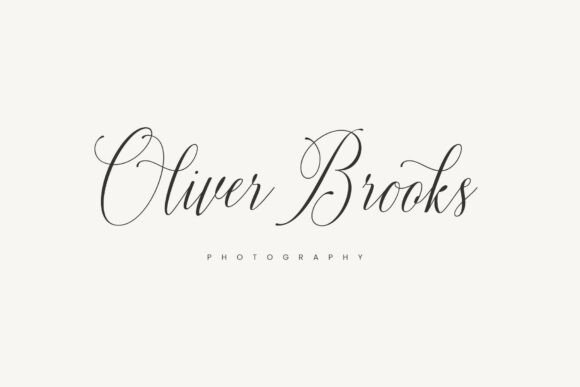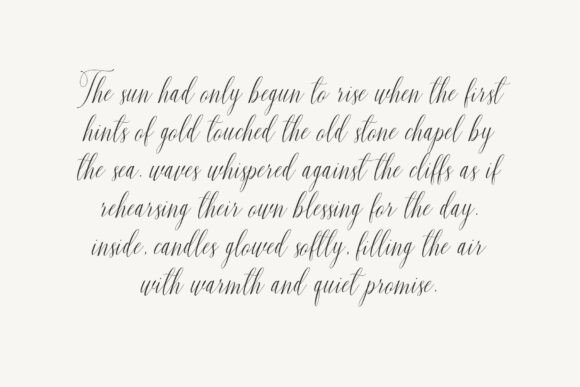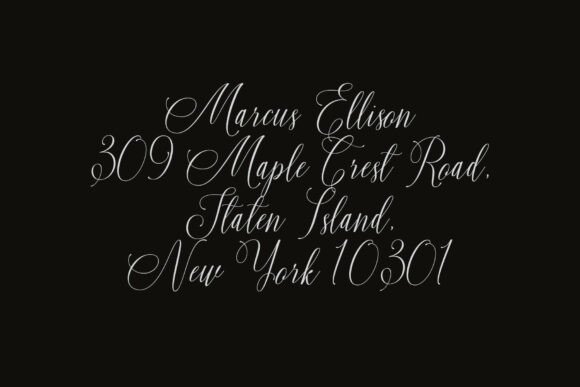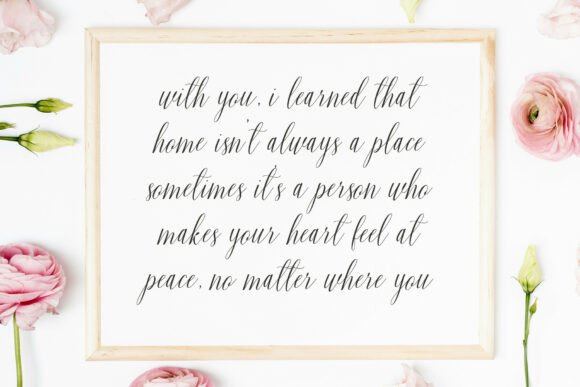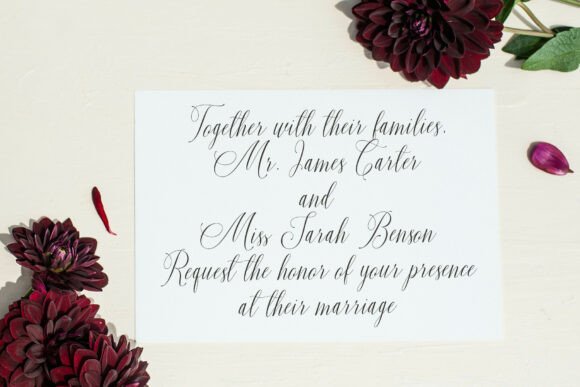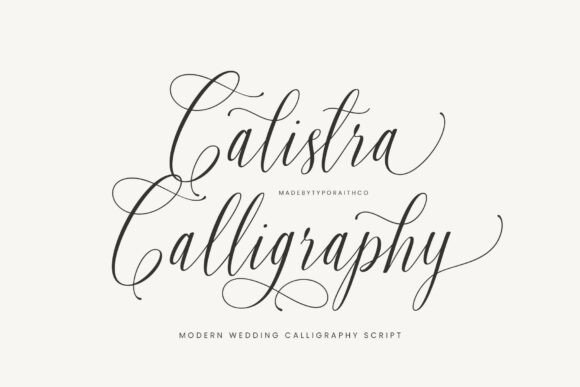
Introducing Calistra Calligraphy Font: Elevate Your Designs with Luxurious Elegance
In the world of typography, few fonts capture the essence of luxury and sophistication as effortlessly as Calistra Calligraphy. This modern script font is meticulously crafted to infuse any design with a romantic, high-end feel, making it an ideal choice for wedding stationery, upscale branding, and premium design projects. With its graceful strokes, flowing curves, and exquisitely refined letterforms, Calistra Calligraphy offers a timeless charm that elevates every creation to new heights of visual beauty.
The Art of Calistra Calligraphy
Calistra Calligraphy is more than just a font; it’s an experience. Its luxurious and elegant design is perfect for designers, small business owners, and crafters looking to add a touch of sophistication to their work. Whether you’re creating bespoke wedding invitations, elegant branding for a high-end client, or simply looking to elevate your personal projects, Calistra Calligraphy provides the perfect blend of style and versatility.
Key Features of Calistra Calligraphy Font
- Luxurious and Elegant Design: Calistra Calligraphy boasts a sophisticated aesthetic that instantly adds a premium feel to any design.
- Graceful Strokes and Flowing Curves: The font’s fluid strokes and curves create a visually stunning effect, perfect for designs that require a touch of elegance.
- Refined Letterforms: Each letterform in Calistra Calligraphy is carefully crafted to ensure maximum readability and aesthetic appeal.
- Versatile and Adaptable: From wedding stationery to upscale branding and packaging, Calistra Calligraphy adapts seamlessly to various design needs.
Why Choose Calistra Calligraphy?
For designers and crafters, the right font can make all the difference in transforming a good design into a great one. Calistra Calligraphy offers several compelling reasons to become your go-to choice for luxury projects:
- Unique and Distinctive: Stand out from the crowd with a font that is both unique and memorable.
Applications of Calistra Calligraphy Font
The versatility of Calistra Calligraphy makes it suitable for a wide range of applications, including:
- Wedding Stationery: Create bespoke wedding invitations, save-the-date cards, and ceremony programs that exude elegance and romance.
- Branding and Packaging: Elevate your brand with a sophisticated image that resonates with luxury and quality.
- Marketing Materials: From brochures to business cards, make a lasting impression with Calistra Calligraphy’s refined aesthetic.
- Personal Projects: Add a touch of luxury to your personal designs, whether it’s for a special occasion or simply to explore your creativity.
| Author | Typoraith Co |
Calistra Calligraphy Font is a game-changer for designers, small business owners, and crafters looking to infuse their work with a sense of luxury and sophistication. Its elegant design, versatility, and ease of use make it an indispensable tool in the world of typography. Whether you’re aiming to create stunning wedding stationery, upscale branding, or simply looking to elevate your design projects, Calistra Calligraphy is the perfect choice. Experience the transformative power of Calistra Calligraphy and take your designs to new heights of elegance and beauty.